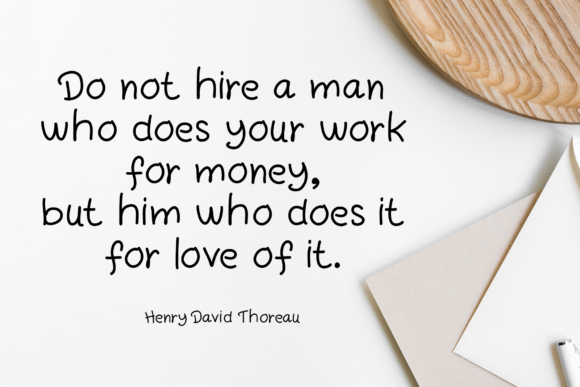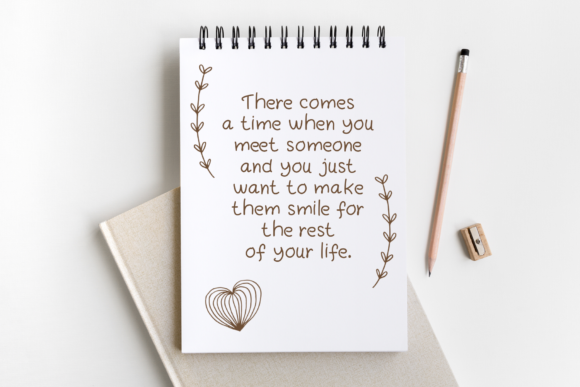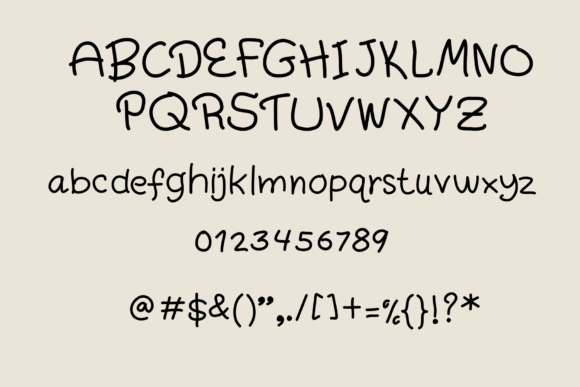
Classy Font
About Classy Font
Classy is a sweet and friendly handwritten font. Its natural and unique style makes it incredibly fitting to a large pool of designs.